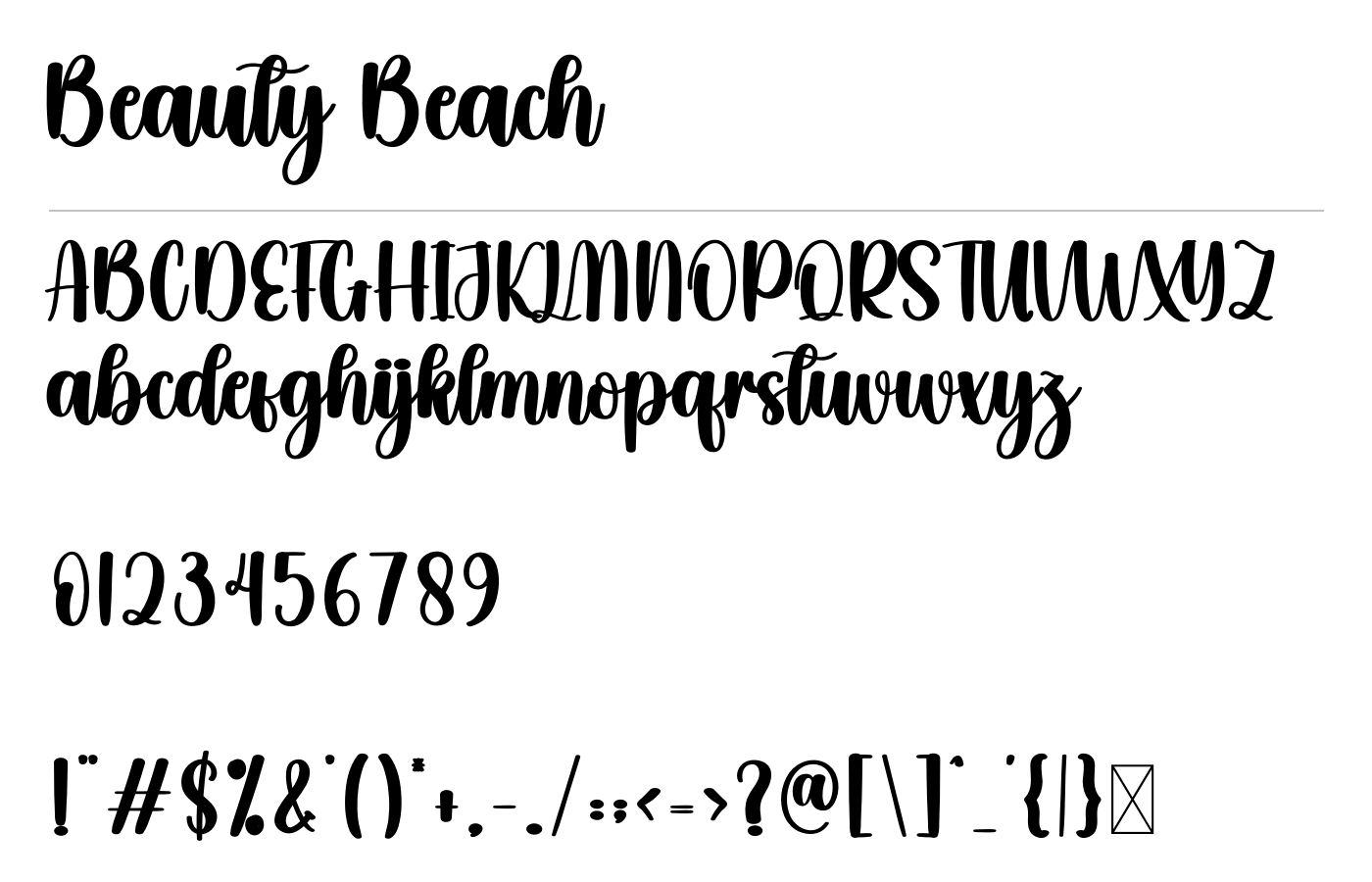
Beauty Beach is a lively and charming script font with a bold weight and playful curves that give it a friendly, hand-lettered feel. Its high x-height and smooth, flowing strokes make it perfect for eye-catching headlines or branding that wants to convey warmth and creativity, especially in lifestyle, fashion, or beauty contexts. This font shines in logos, invitations, and packaging where a personal, artistic touch is desired.
Beauty Beach Font
About Beauty Beach Font